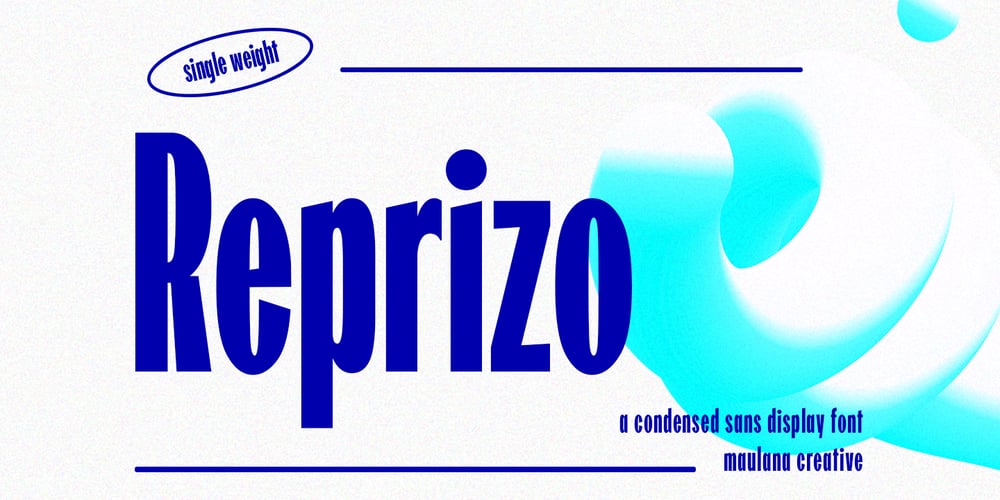
Reprizo Condensed Sans Display Font
Reprizo Condensed Sans Display Font Font Family was designed by Gilang Maulana and published by Maulana Creative. Reprizo Condensed Sans Display Font contains 1 styles and family package options. Reprizo is a modern condensed sans display font. Bold stroke, fun character with a bit of ligatures and alternates. To give you an extra creative work. Reprizo font support multilingual more than 100+ language. This font is good for logo design, Social media, Movie Titles, Books Titles, a short text even a long text letter and good for your secondary text font with script or serif. Make a stunning work with Reprizo font. Cheers, Maulana Creative